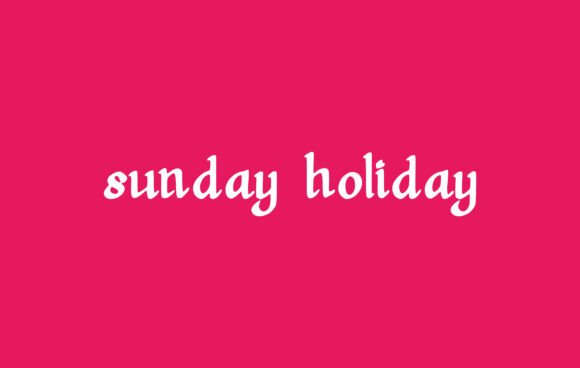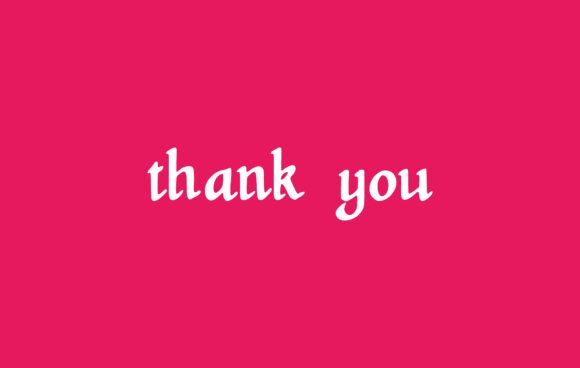
Asteroid Runner Font: Elevate Your Designs with a Romantic Touch
Are you a designer or crafter looking for a unique and authentic handwritten font to take your creative projects to the next level? Look no further than the Asteroid Runner font. This beautifully crafted font is designed to add a romantic touch to your designs, making it perfect for a wide range of applications.
What is Asteroid Runner Font?
Asteroid Runner font is an authentic handwritten font that exudes a sense of elegance and sophistication. Its romantic touch makes it ideal for designs that require a personal and emotional connection with the audience. The font is expertly designed to be a true favorite among designers and crafters, with a unique style that sets it apart from other fonts.
Key Features of Asteroid Runner Font
- Legibility: The Asteroid Runner font is highly legible, making it perfect for use as both title and body text.
- Versatility: This font can be used for a wide range of designs, including magazine headlines, social media graphics, branding materials, wedding invitations, cards, and more.
- Romantic Touch: The font’s romantic touch adds an emotional connection to your designs, making them more engaging and memorable.
- Authentic Handwritten Style: The Asteroid Runner font is designed to mimic the look and feel of handwritten text, giving your designs a personal and unique touch.
Uses of Asteroid Runner Font
The Asteroid Runner font is incredibly versatile and can be used for a variety of design projects. Here are some ideas to get you started:
- Magazine Headlines: Use the Asteroid Runner font to create eye-catching headlines for your magazine or publication.
- Social Media Graphics: Add a personal touch to your social media graphics with the Asteroid Runner font.
- Branding Materials: Use the font to create unique and memorable branding materials, such as logos, business cards, and letterheads.
- Wedding Invitations: The romantic touch of the Asteroid Runner font makes it perfect for wedding invitations and other special occasion cards.
- Crafting Projects: Use the font to add a personal touch to your crafting projects, such as handmade cards, gift tags, and scrapbooking pages.
Why Choose Asteroid Runner Font?
With so many fonts available, why choose the Asteroid Runner font? Here are just a few reasons:
- Unique Style: The Asteroid Runner font has a unique and authentic handwritten style that sets it apart from other fonts.
- High Legibility: The font is highly legible, making it perfect for use as both title and body text.
- Emotional Connection: The romantic touch of the font adds an emotional connection to your designs, making them more engaging and memorable.
- Versatility: The font can be used for a wide range of design projects, making it a great addition to any designer’s toolkit.
In conclusion, the Asteroid Runner font is a beautiful and versatile font that can add a romantic touch to your designs. With its unique style, high legibility, and emotional connection, it’s perfect for a wide range of design projects. Whether you’re a designer or crafter, the Asteroid Runner font is sure to become a favorite in your toolkit.